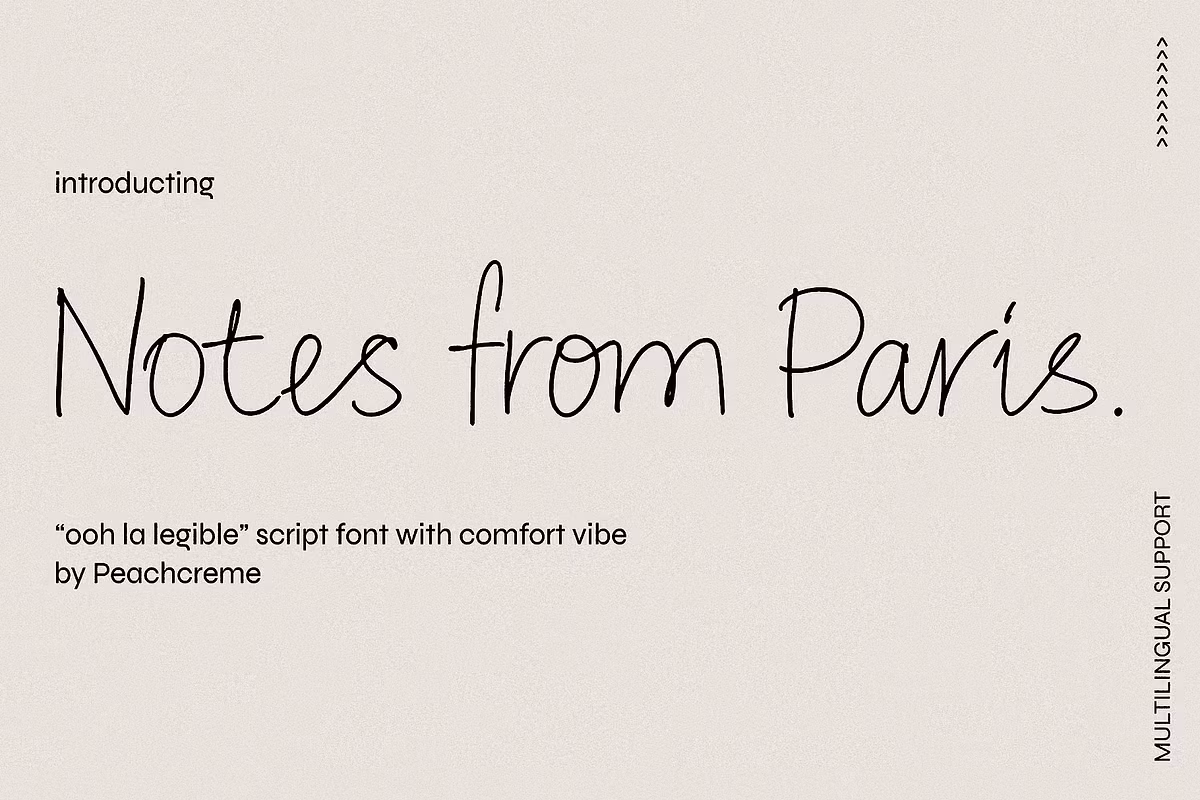
Notes from Paris Legible Script Font Free Download is an elegant and legible script typeface that captures the romantic, handwritten feel of classic French calligraphy. With its smooth, flowing strokes and refined letterforms, this font is perfect for creating stylish and sophisticated designs like wedding invitations, branding, logos, greeting cards, and more.
The Notes from Paris font combines the beauty of a handwritten script with exceptional legibility, ensuring it works well in both print and digital projects. Whether you're designing for a luxury brand, a personal blog, or a romantic event, this font adds a timeless, chic touch.
Add the charm and elegance of Parisian script to your designs with Notes from Paris! ✨